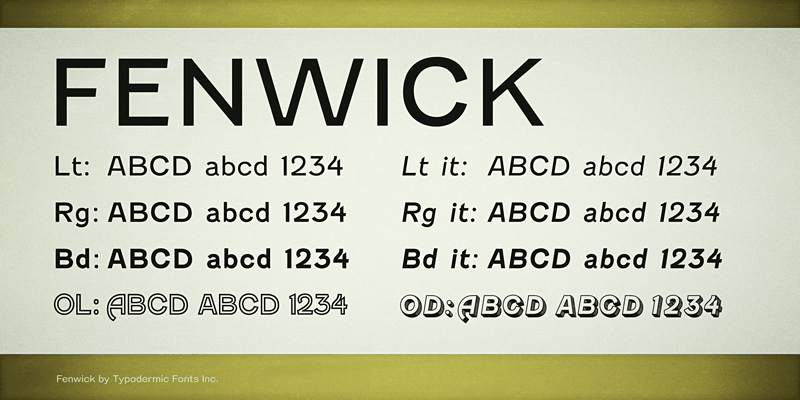
Fenwick is a lineal, metal type with unusual proportions. The almost sinuous curves of the numerals revive their inherent Arabian roots and the italic’s line thickness was amended by eye so as not appear too mechanical. Fenwick Outline is a free part of a larger font family. This font includes a license that allows free commercial use: sometimes referred to as a desktop license. This allows you to install the font on a computer and use it to create posters, web graphics, game graphics, t-shirts, videos, signs, logos and more. Read the license agreement for details. If you'd like to embed this font in an app, ebook, on the web or anything that's not covered by the desktop license agreement, visit the link below. You'll find distributors who offer different types of licenses or you can contact me for help. http://typodermicfonts.com/fenwick/ This free font is part of a larger font family. Check out the rest of the family through the link above. |